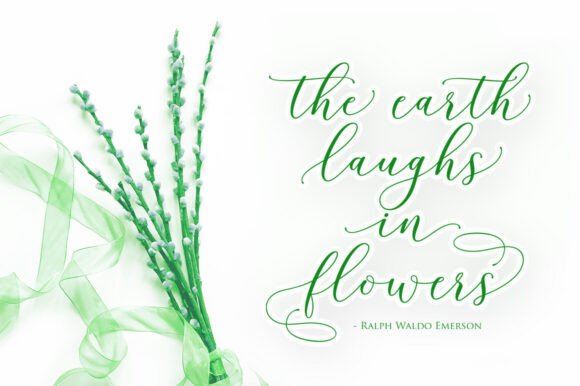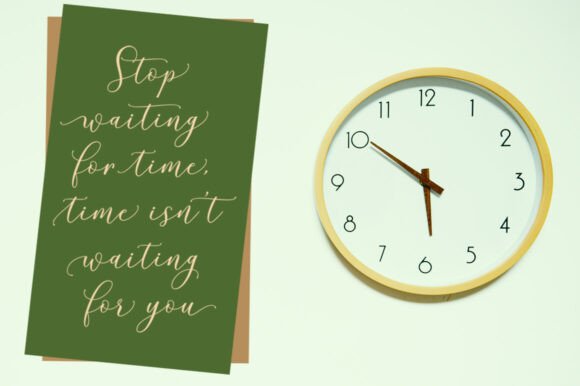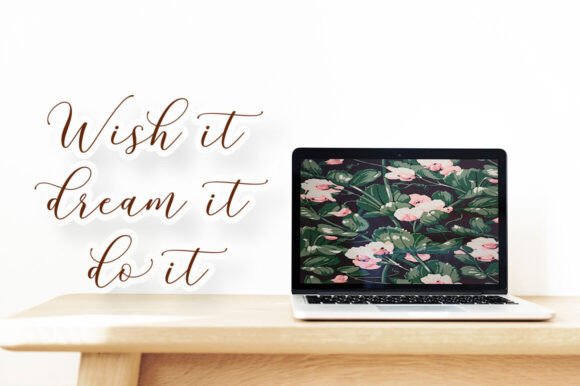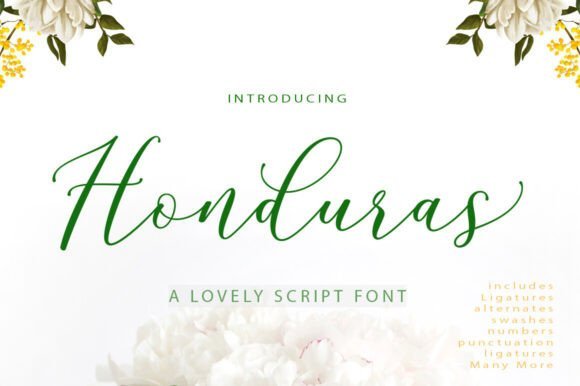
Introduction to Honduras Font
Honduras Script is a decorative, cursive script font characterized by its elegant, flowing strokes.
The design of this font typically mimics handwritten or calligraphic styles, with smooth curves and artistic flourishes on many of the letters It’s ideal for projects that need a sophisticated or stylish touch, such as wedding invitations, branding, or logo design.
Key Features of Honduras Font
Why Choose Honduras Font?